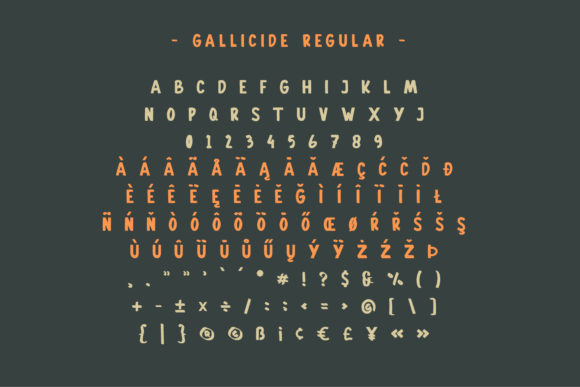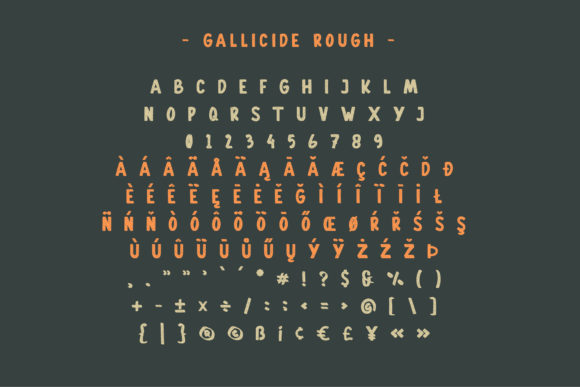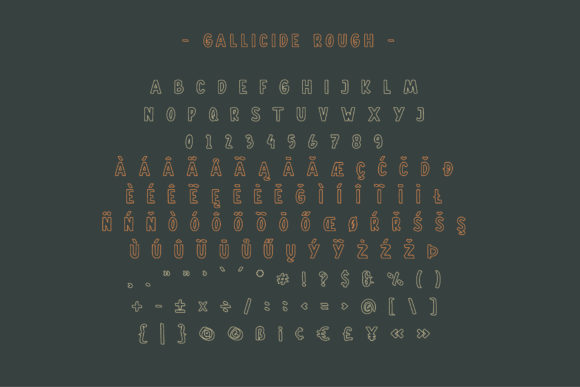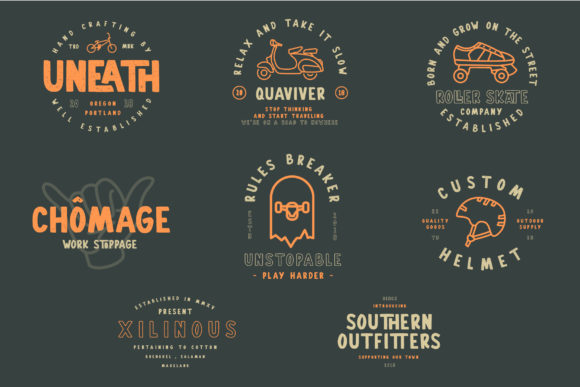
Introduction to Gallicide Font
Remember that moment when you’re working on a creative project, and you’re stuck searching for the perfect font to match your design? The hours tick by, and you’ve scrolled through countless design resources, but nothing seems to fit quite right. That’s when I stumbled upon the Gallicide Font, and I knew I had found a game-changer.
The Gallicide Font is more than just a beautiful all-caps font – it’s a versatile design tool that can elevate any project. With its unique vintage texture and modern appeal, it’s the perfect choice for designers looking to add a touch of sophistication to their work. Whether you’re working on a high-quality brochure or a free download, this font is sure to impress.
What sets the Gallicide Font apart is its adaptability. From a transparent background to a bold, rough design, this font has three styles to choose from, making it an invaluable resource for designers of all levels.
Key Features of Gallicide Font
- Unique, hand-drawn design perfect for creative projects and design resources
- Includes a range of characters, including uppercase and lowercase letters, numbers, and punctuation marks
- Designed to be versatile, suitable for use in various design contexts, from logos to typography-based art
Honest Review: Gallicide Font
As a designer, I’ve had the chance to work with a variety of fonts, and I was excited to dive into the Gallicide Font. My initial impression was that it’s a unique and stylish addition to any creative project.
- ✨ The Gallicide Font has a high level of customization, making it perfect for designers who want to add a personal touch to their design resource.
- ✨ The transparent background option makes it easy to integrate the font into any design, without worrying about distracting backgrounds.
- ⚠️ The font may not be suitable for very formal or professional projects, as it has a more casual and modern feel.
Overall, I was impressed with the Gallicide Font, and I think it’s a great addition to any designer’s toolkit. While it may have some limitations, it’s a high-quality font that’s perfect for creative projects that require a bit of flair.
Tips for Getting the Most Out of Gallicide Font
To get the most out of the Gallicide Font, experiment with different font sizes, colors, and styles to find the perfect combination for your design. You can also use the font in conjunction with other design elements, such as images and graphics, to create a cohesive and visually appealing design.
Common Use Cases for Gallicide Font
The Gallicide Font is ideal for a variety of design applications, including brochures, business cards, and social media graphics. Its high-quality design and transparent background make it perfect for use in a range of creative projects.